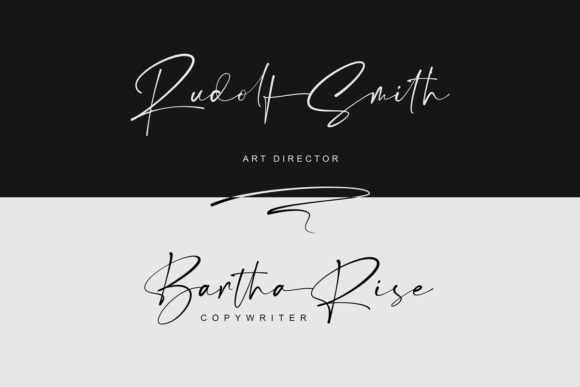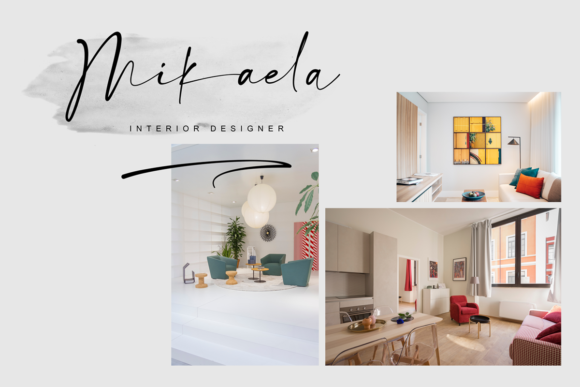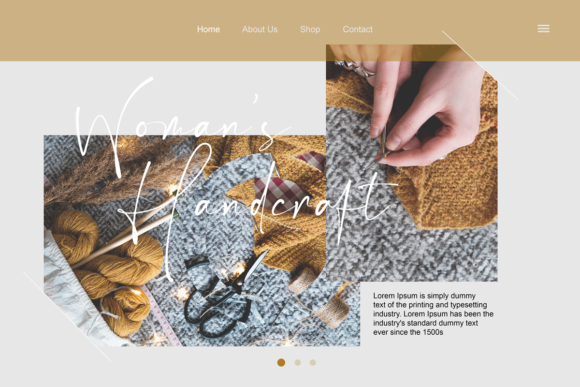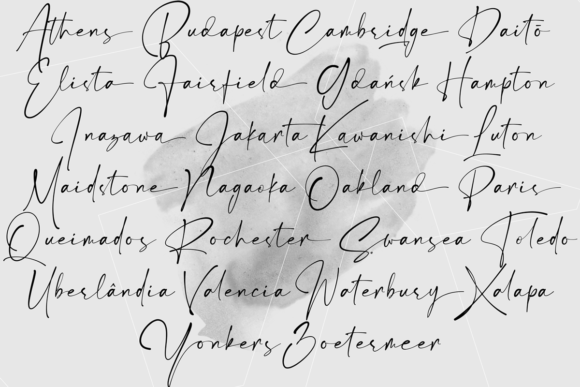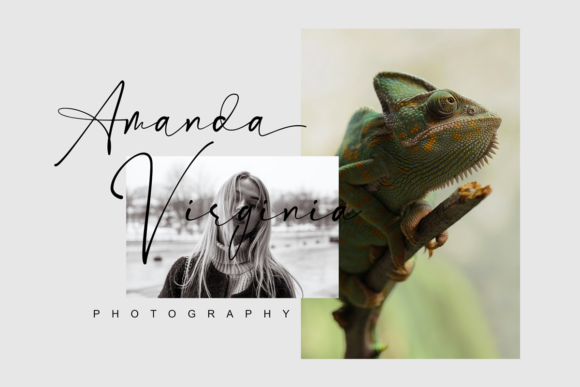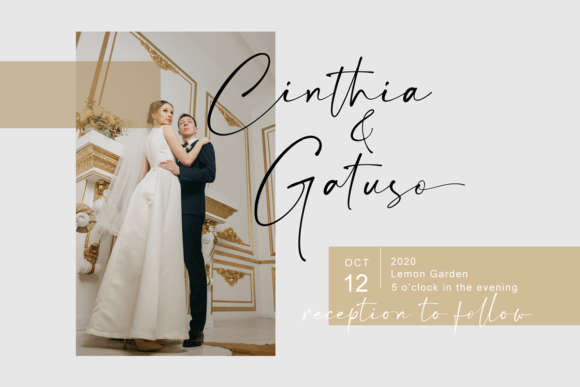
Estrada Signature Font: Elevate Your Designs with Luxurious Handwritten Style
Are you tired of using the same old fonts in your designs? Do you want to add a touch of elegance and sophistication to your creations? Look no further than Estrada Signature, a luxurious handwritten font that is sure to take your designs to the next level. With its incredibly distinct and timeless style, Estrada Signature is the perfect choice for designers and crafters who want to create spectacular designs that stand out from the crowd.
The Story Behind Estrada Signature
Estrada Signature is more than just a font – it’s a statement piece. Its unique and elegant style is inspired by traditional calligraphy, with a modern twist that makes it perfect for contemporary designs. The font features beautiful, flowing lines and a distinctive character that is sure to capture the attention of your audience. Whether you’re designing a logo, a wedding invitation, or a brand identity, Estrada Signature is the perfect choice.
What Makes Estrada Signature So Special?
So, what sets Estrada Signature apart from other fonts on the market? Here are just a few reasons why this luxurious handwritten font is a cut above the rest:
- Unique and Timeless Style: Estrada Signature has a classic, timeless style that never goes out of fashion. Its elegant lines and beautiful flourishes make it perfect for designs that require a touch of sophistication.
- Highly Versatile: Whether you’re designing a logo, a brochure, or a social media post, Estrada Signature is highly versatile and can be used in a variety of contexts.
- Easy to Read: Despite its elegant style, Estrada Signature is highly legible and easy to read, making it perfect for body text as well as headlines.
- Perfect for Branding: With its distinctive character and luxurious feel, Estrada Signature is perfect for branding and identity design.
How to Use Estrada Signature in Your Designs
Now that you know why Estrada Signature is so special, let’s talk about how to use it in your designs. Here are a few tips to get you started:
- Pair it with a Simple Font: Estrada Signature is a bold and elegant font, so it’s best paired with a simple font that won’t compete with it. Try pairing it with a clean sans-serif font for a beautiful contrast.
- Use it for Headlines and Titles: Estrada Signature is perfect for headlines and titles, where its elegant style can really shine.
- Experiment with Colors and Textures: Estrada Signature looks beautiful in a variety of colors and textures, so don’t be afraid to experiment and find the perfect combination for your design.
Perfect for Crafters and Designers
Estrada Signature is not just perfect for designers, but also for crafters who love to create handmade cards, scrapbook pages, and other paper crafts. With its elegant style and luxurious feel, Estrada Signature is sure to add a touch of sophistication to any craft project. Whether you’re creating a handmade card for a special occasion or a scrapbook page to commemorate a memory, Estrada Signature is the perfect choice.
In conclusion, Estrada Signature is a luxurious handwritten font that is sure to elevate your designs to the next level. With its incredibly distinct and timeless style, Estrada Signature is perfect for designers and crafters who want to create spectacular designs that stand out from the crowd. Whether you’re designing a logo, a wedding invitation, or a brand identity, Estrada Signature is the perfect choice. So why wait? Fall in love with Estrada Signature today and start creating stunning designs that will leave a lasting impression!